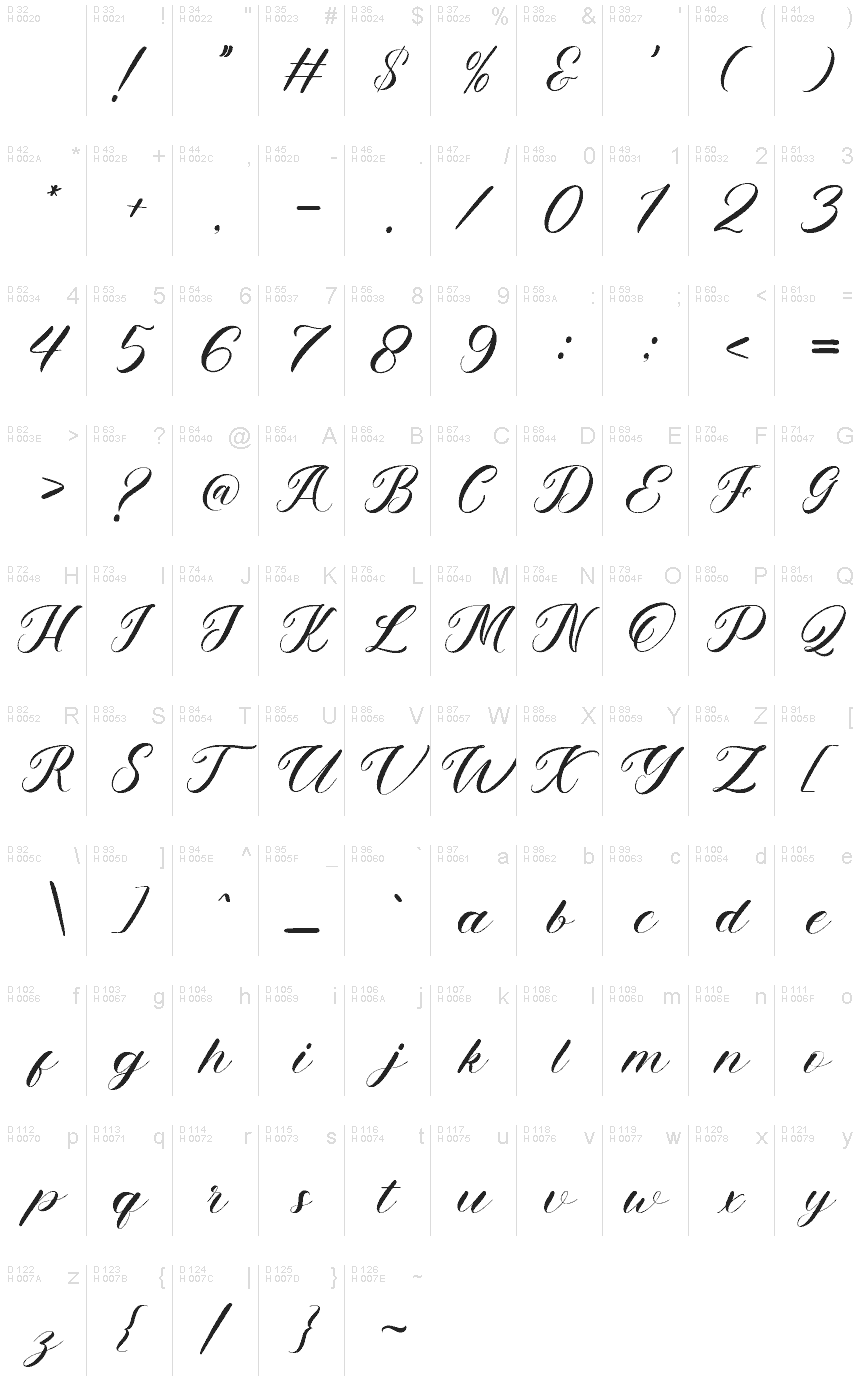
NCL Lets Wendy
NCL Lets Wendy font by Enxyclo Studio is an elegant calligraphy font with a graceful flowing character. The typeface has a sophisticated appearance that gives it a formal artistic look suitable for professional and casual designs. Expressive and decorative, this cursive font will properly style any title or text used for print or digital platforms.
Use NCL Lets Wendy’s free calligraphy font in designing wedding invitations, greeting cards, booklets, magazines, poster titles, quotes, merchandise design, games or movie titles. It can also be used on logos and slogans of cosmetics or fashion brands in addition to other applications where luxury is essential.